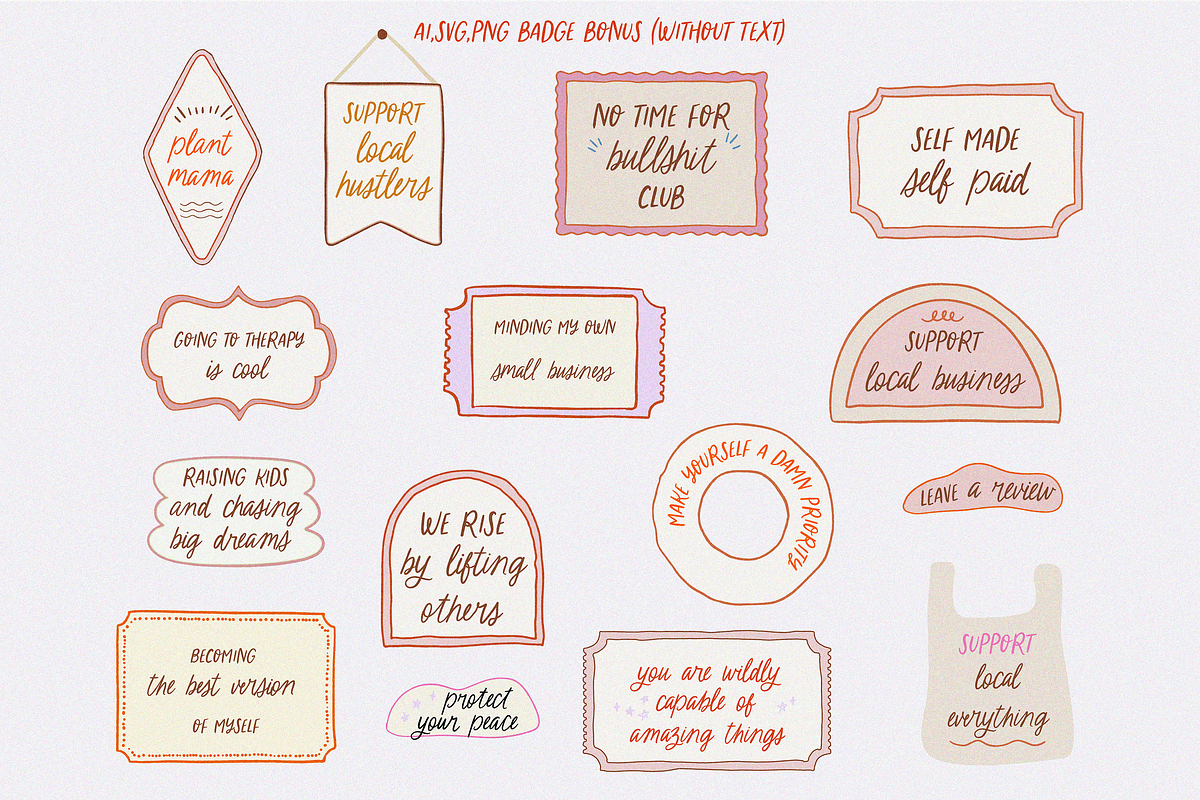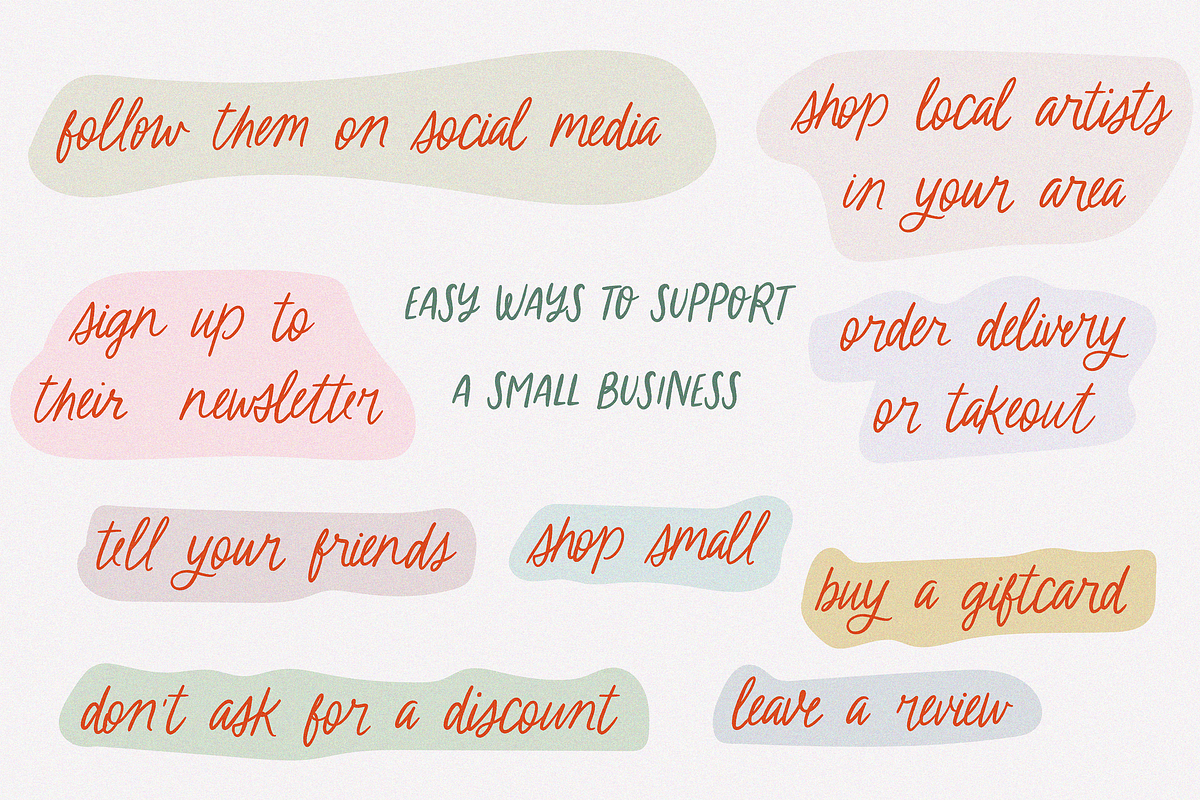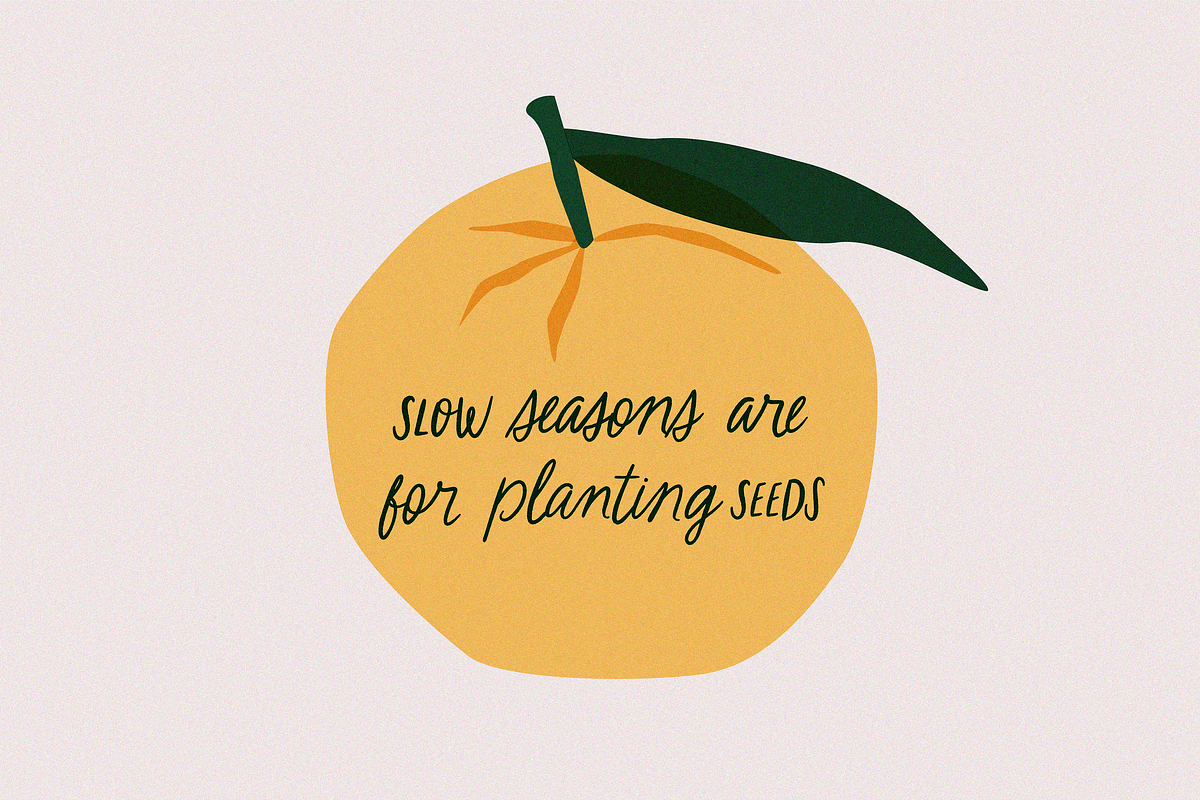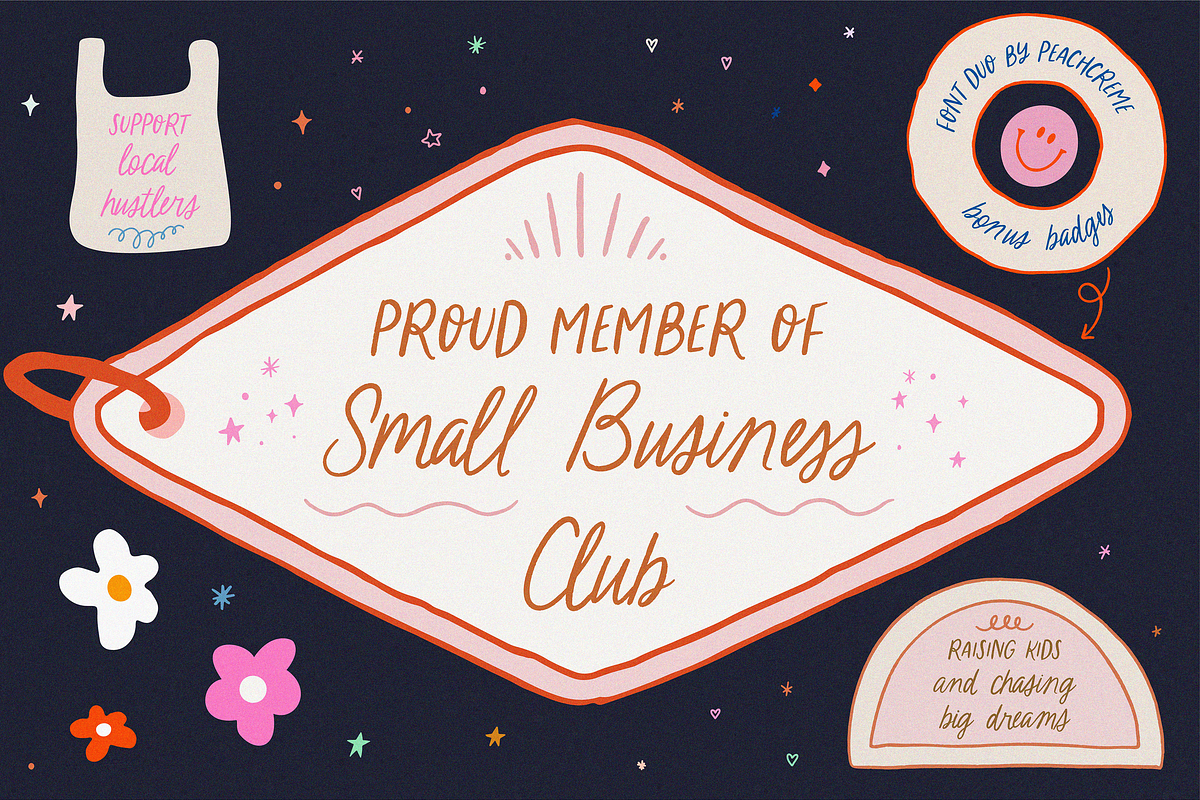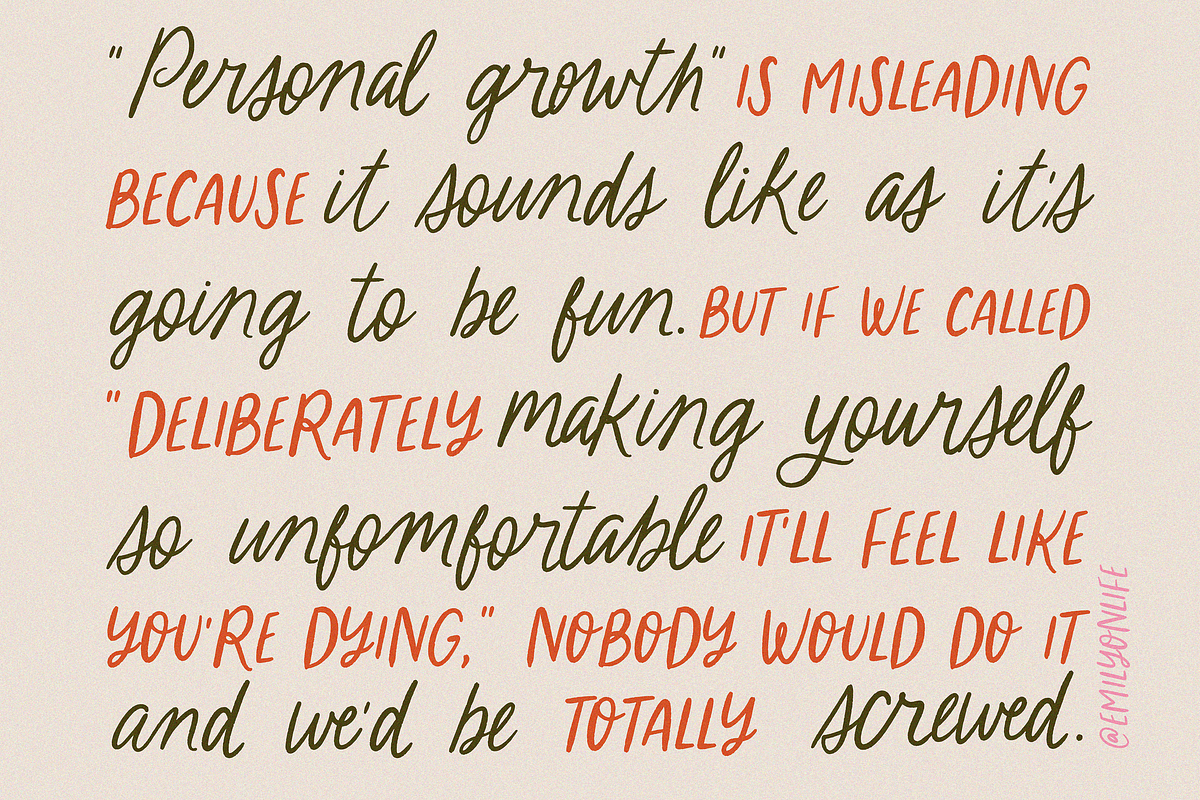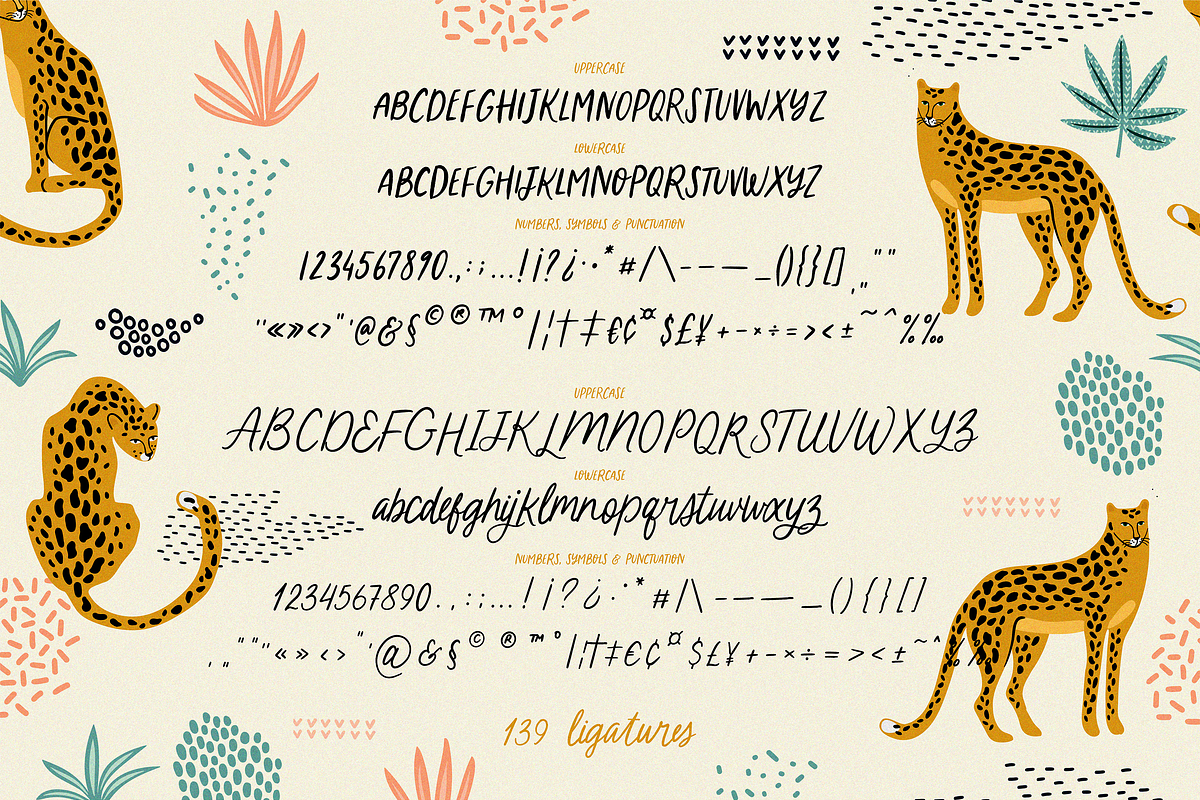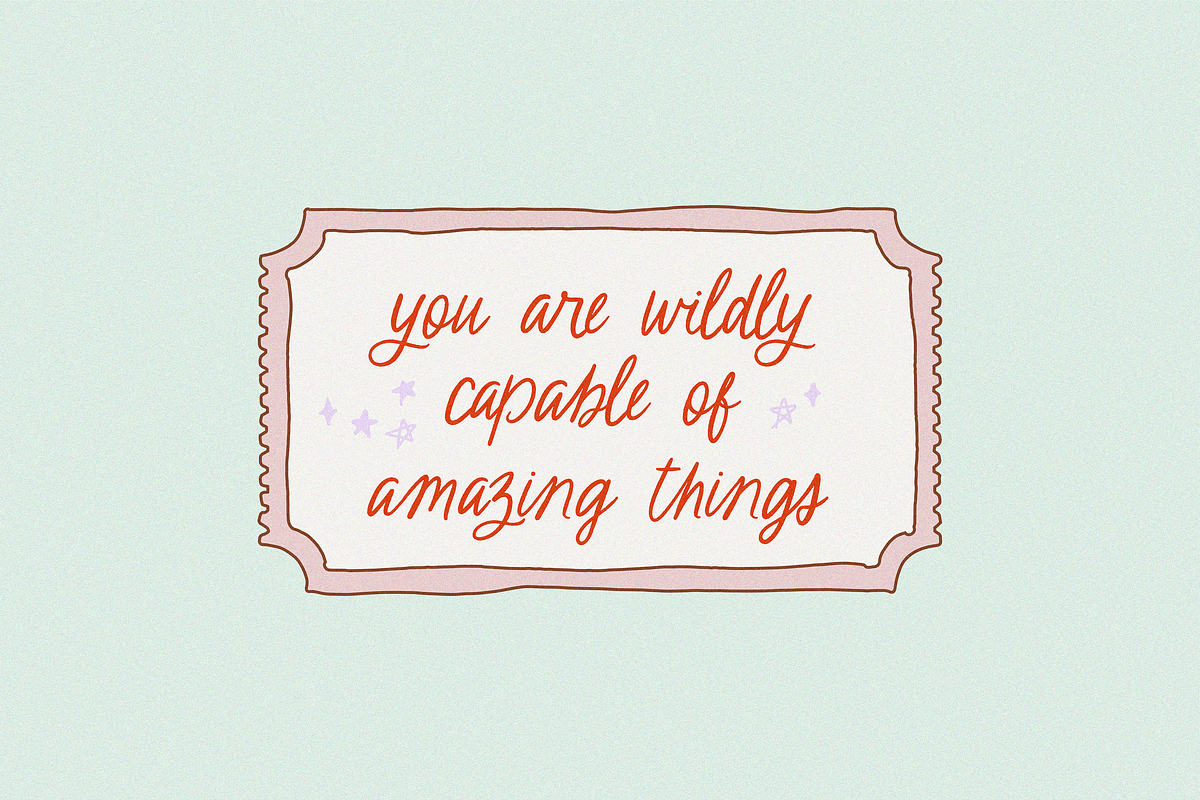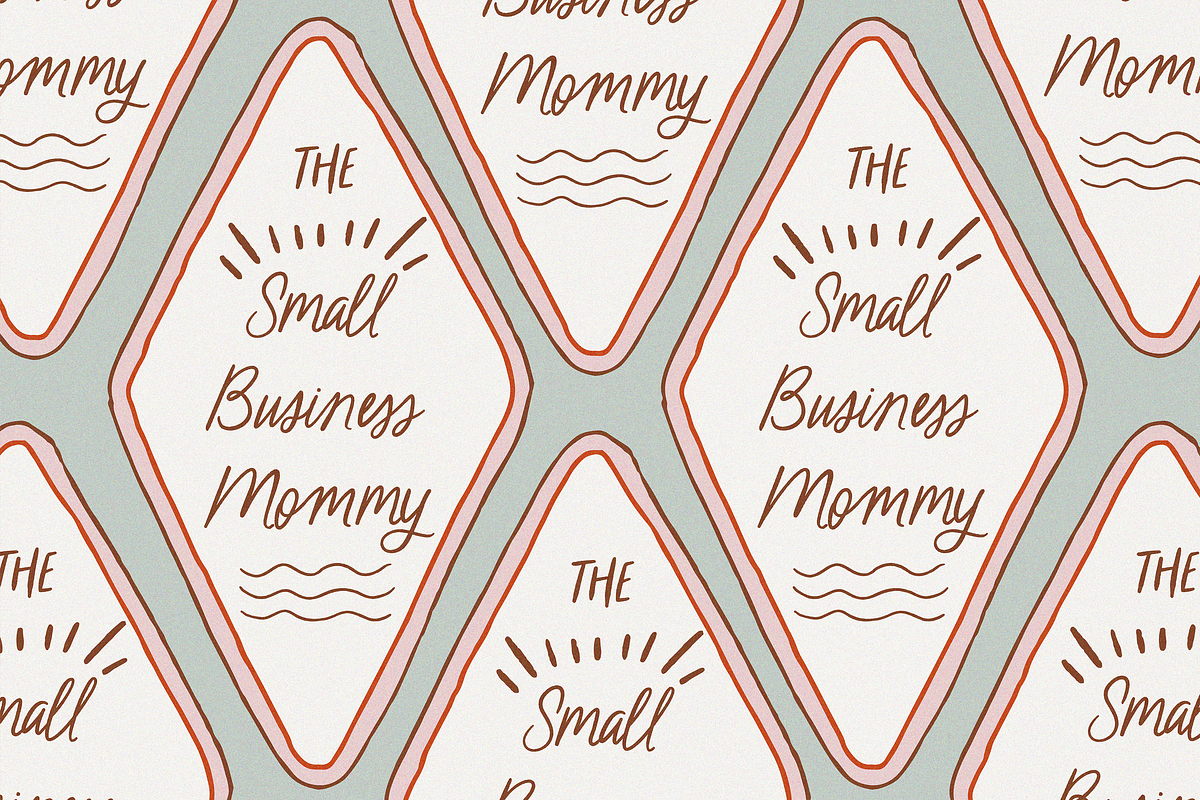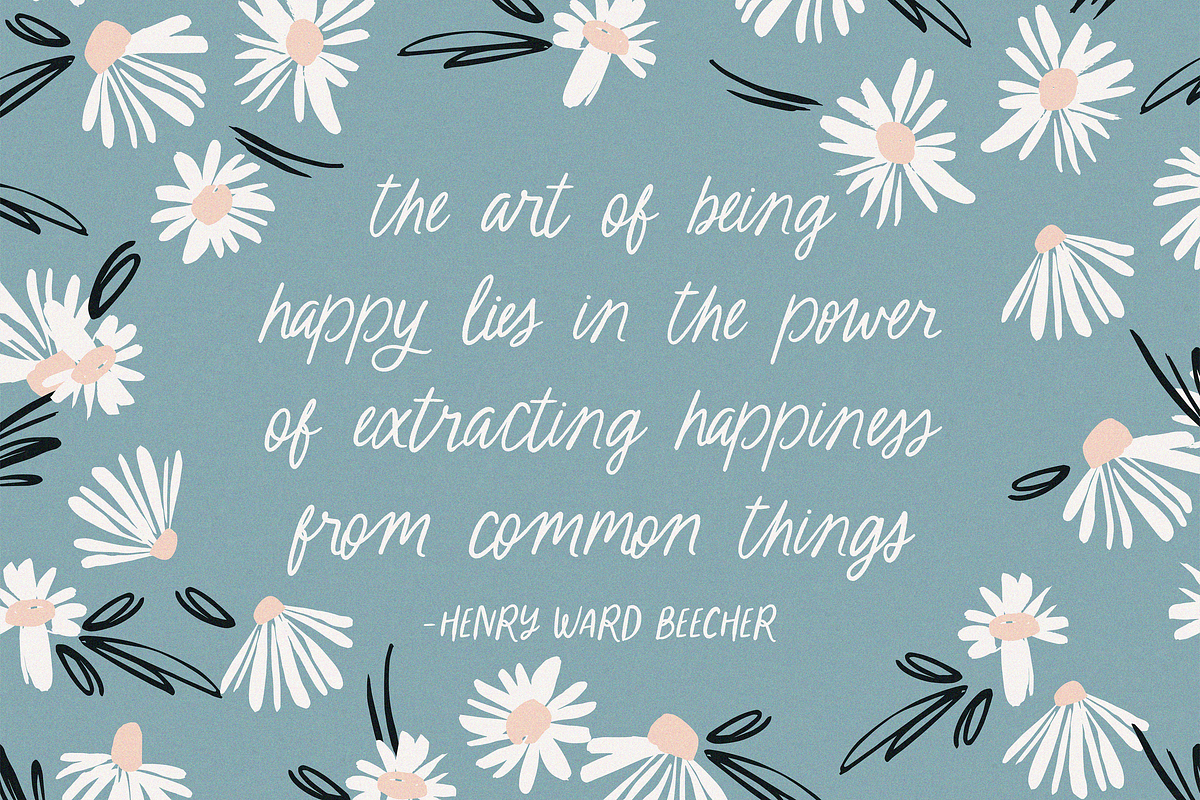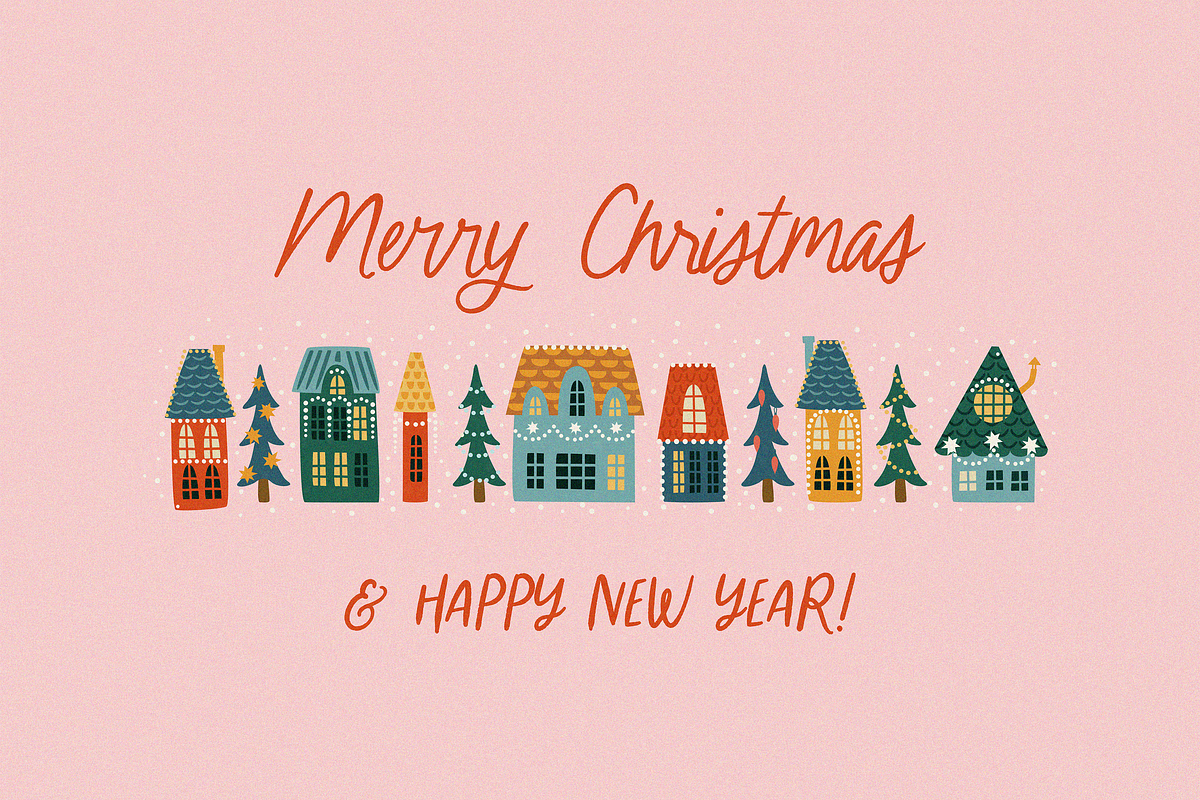
Small Business Club//Fun Font Duo
Our new font duo “Small Business Club“ -
sweet hand-drawn script and display fonts made to complement each other harmoniously.
Small Business Club Display • Cute handwritten all-caps sans serif font. With its legible and convenient letters, the font works great for small business projects, Instagram posts, and various display headlines as well.
Small Business Club Script • Featuring 139 ligatures, the script font with its pleasantly sloppy letters looks like it was written in hand giving the product an authentic and realistic look. Perfect for quote designs, quaint logos, packaging, lighthearted signboards, greeting cards, merchandise designs and so much more!